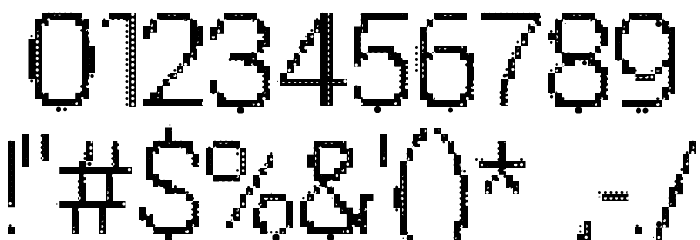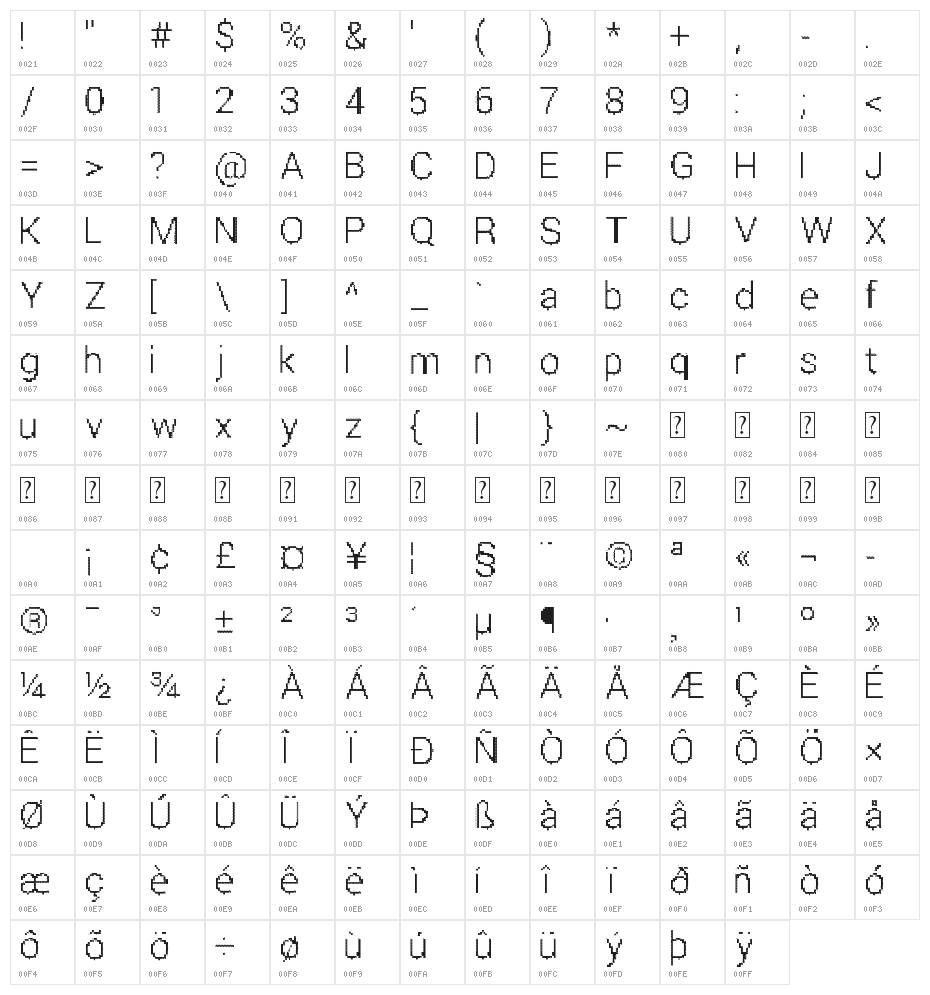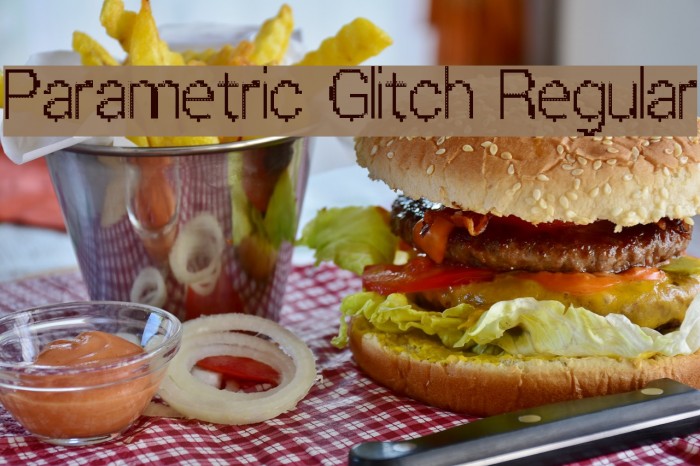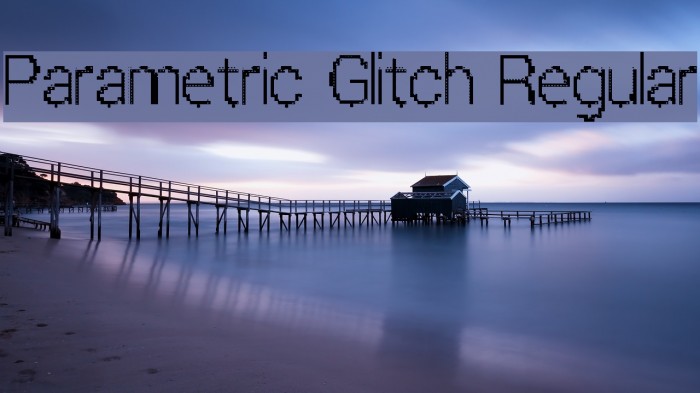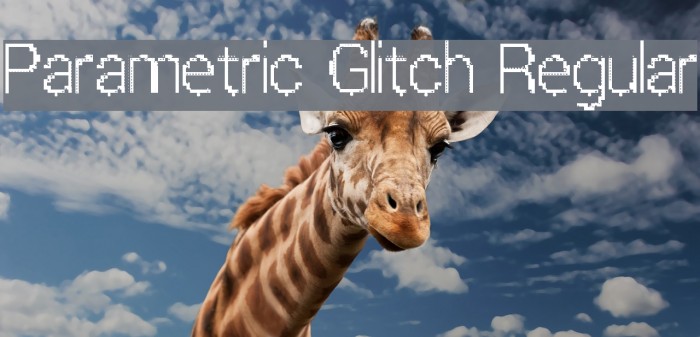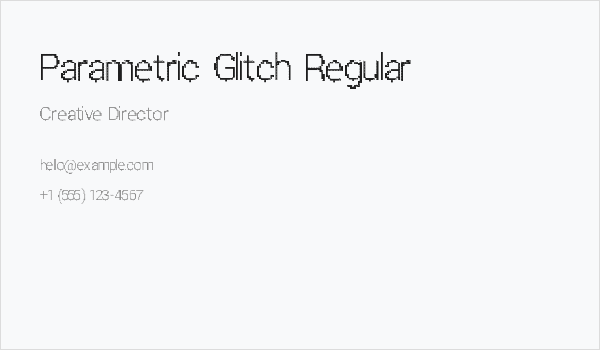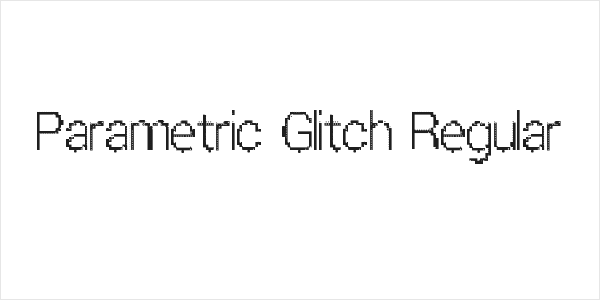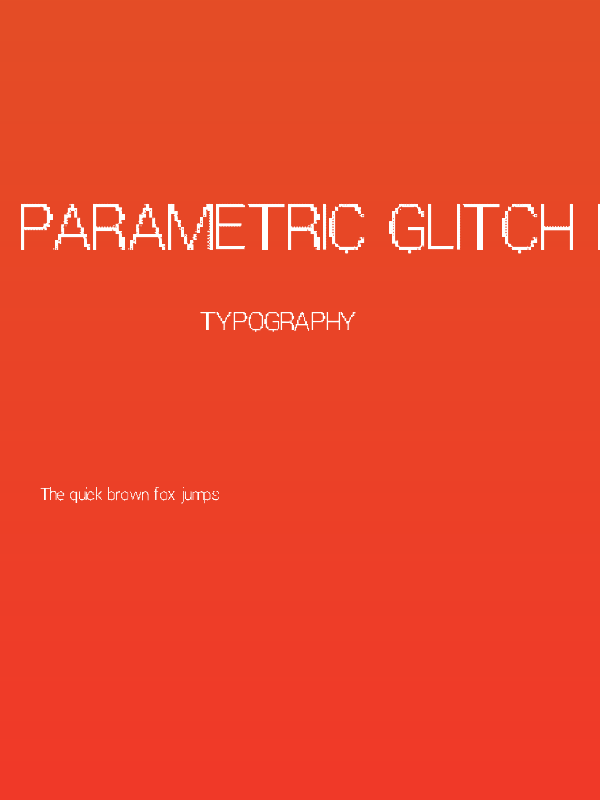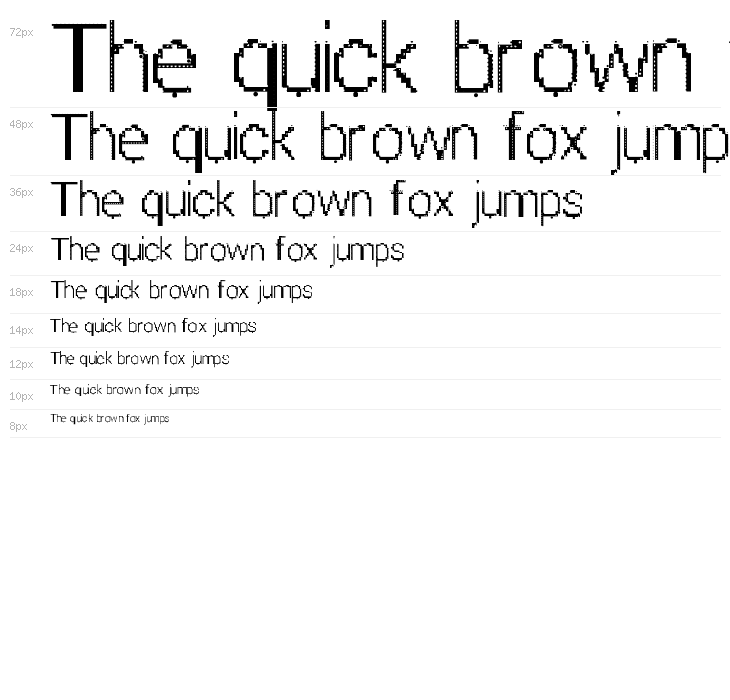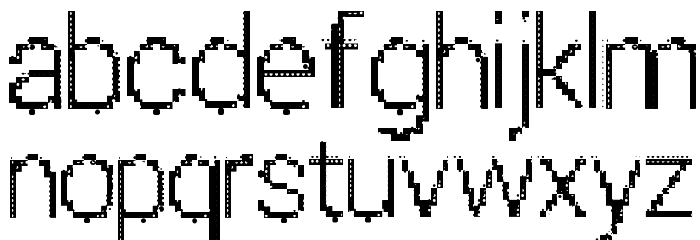
Parametric Glitch Regular Font
Parametric Glitch Regular Description
This font features a unique glitch-inspired design, characterized by its pixelated and fragmented appearance. The letters are formed with a series of small, square-like dots that create a digital, tech-inspired aesthetic. The uppercase and lowercase letters maintain a consistent style, with sharp edges and a structured form. Numbers and special characters follow the same design principles, ensuring a cohesive look across all glyphs. The font's distinct style makes it stand out, offering a modern and edgy feel that is perfect for digital and tech-themed projects.